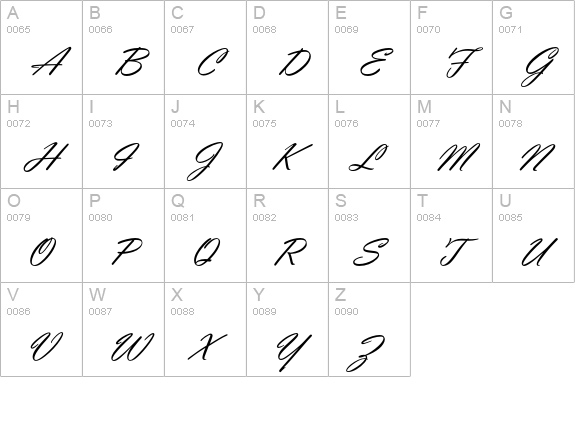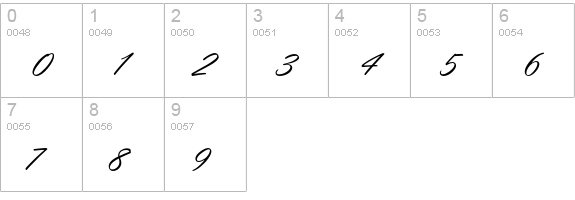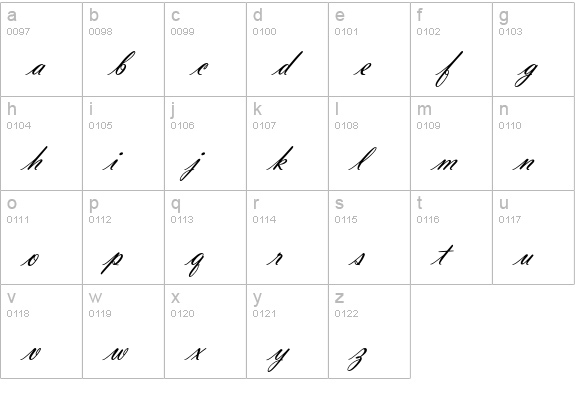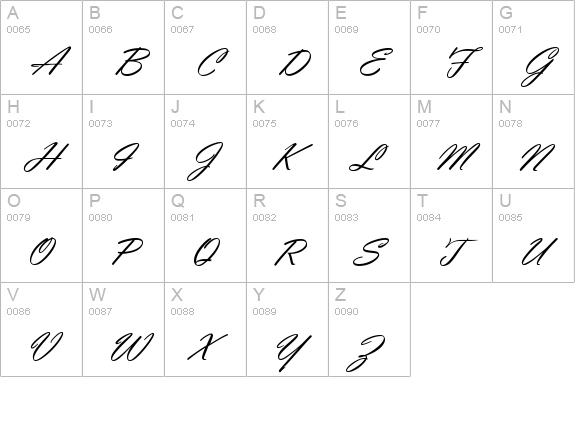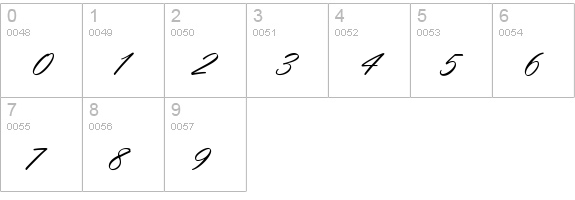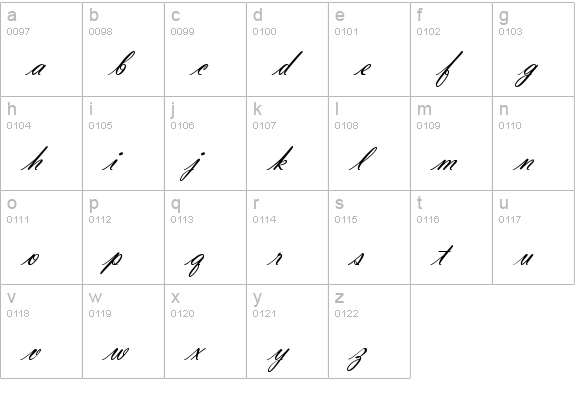
VladimirScriptEF Font Details
Introducing VladimirScriptEF, a captivating and elegant font that seamlessly blends classic calligraphy with a modern twist. This typeface exudes sophistication and style, making it the perfect choice for a wide range of projects, from wedding invitations to branding materials. VladimirScriptEF features beautifully handcrafted letterforms, each meticulously designed to convey a sense of grace and fluidity. The sweeping strokes and delicate curves effortlessly flow together, creating a harmonious and visually pleasing aesthetic. The generous spacing between characters ensures readability and adds an air of refinement to any text. What sets VladimirScriptEF apart is not only its impeccable design but also its accessibility. This font is available for free, allowing designers and enthusiasts alike to effortlessly incorporate its timeless beauty into their work. Whether you're a professional designer seeking a versatile typeface or an individual looking to add a touch of elegance to a personal project, VladimirScriptEF is sure to exceed your expectations. To obtain this remarkable font, simply visit FontsMarket.com, where it is freely available for download. This user-friendly platform offers a vast collection of high-quality fonts, ensuring you can find the perfect match for any creative endeavor. So why wait? Elevate your designs with the enchanting allure of VladimirScriptEF and let your imagination soar.